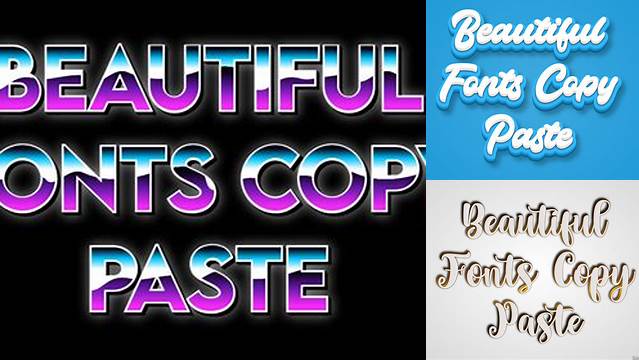
Cool Fonts: Copy And Paste For Beautiful Text!
Hey guys! Ever wanted to make your social media posts, messages, or designs pop with some unique and beautiful fonts? Well, you’ve come to the right place! We're diving deep into the world of copy and paste fonts that can add that extra flair to your content. Forget about being stuck with the same old boring fonts – we’re here to explore a whole universe of text styles that are just a copy and paste away! So, let’s get started and transform your text from blah to brilliant!
Fancy Text Generators: Your Gateway to Beautiful Fonts
So, you're wondering, how do I even get these beautiful fonts to copy and paste? The answer lies in the magic of fancy text generators! These nifty online tools are like font factories, churning out a variety of styles that you can easily copy and paste into your desired platform. We're talking about everything from cursive and calligraphy to bubble letters and bold, futuristic fonts. It’s like having a digital calligraphy set at your fingertips! These generators work by using special Unicode characters that mimic different font styles. The beauty is that you don’t need to download anything – just type your text, choose your font, and boom! You’ve got beautiful fonts ready to go. These tools are super user-friendly, even if you're not a tech whiz. Plus, they’re a fantastic way to experiment with different styles and see what best suits your vibe. Think of it as your personal font playground, where you can unleash your creativity and make your text truly stand out. It’s all about adding that personal touch, and fancy text generators make it incredibly easy to do so. So, next time you’re looking to spice up your text, remember these little gems – they're your secret weapon to beautiful fonts!
Cursive Fonts: Adding Elegance to Your Text
If you're aiming for a touch of elegance and sophistication, then cursive fonts are your best friend. These beautiful fonts mimic the flow and loops of handwriting, adding a personal and refined feel to your text. Imagine using a delicate cursive font for invitations, heartfelt messages, or even your Instagram bio – it instantly elevates the overall look! The great thing is, you can easily find a variety of cursive fonts through copy and paste methods. Fancy text generators often have a dedicated section for cursive styles, offering options that range from traditional calligraphy to modern and whimsical scripts. When choosing a cursive font, think about the context. A flowing, ornate script might be perfect for a formal occasion, while a simpler, more legible cursive could work well for everyday use. Experiment with different styles to see what resonates with you and the message you want to convey. Remember, cursive fonts are all about making a statement with style and grace. They're a fantastic way to add a touch of class to your digital presence, and the ease of copy and paste makes them incredibly accessible. So, go ahead and embrace the beauty of cursive – it's a font choice that never goes out of style!
Bold Fonts: Making a Statement with Strength
Sometimes, you need your text to pack a punch, and that's where bold fonts come into play. These beautiful fonts are designed to grab attention and make a statement with their strong, thick lines. Think of them as the shout-out of the font world – perfect for headlines, announcements, or any time you want to emphasize a particular message. The beauty of bold fonts is their versatility. They can be used across a wide range of platforms and contexts, from social media posts to website headers. When you copy and paste bold fonts, you're instantly adding visual weight to your text, making it stand out from the crowd. Fancy text generators offer various bold styles, from classic and sturdy to modern and edgy. Experiment with different weights and widths to find the perfect balance for your needs. A super-bold font might be ideal for a short, impactful headline, while a slightly lighter bold could work well for body text. Remember, bold fonts are all about making an impact, so use them strategically to highlight the most important aspects of your message. They’re a simple yet effective way to add emphasis and ensure your text gets noticed.
Italic Fonts: Adding Emphasis and Style
When you want to add a touch of flair or emphasize certain words or phrases, italic fonts are your go-to choice. These beautiful fonts lean slightly to the right, creating a sense of movement and drawing the reader's eye. They're perfect for adding emphasis to quotes, titles, or any text you want to stand out from the rest. Italic fonts also bring a stylish touch to your writing, making it feel more elegant and sophisticated. Finding and using italic fonts is a breeze thanks to copy and paste methods. Many fancy text generators offer italic versions of their fonts, allowing you to easily transform your text with a simple click. You can even combine italics with other styles, like bold or cursive, for a truly unique look. Think about using italics in your social media captions, blog posts, or even your email signatures to add a subtle yet impactful touch. They're a fantastic way to highlight key information and make your text more visually appealing. Remember, italics are like the whisper of the font world – they add a touch of intrigue and draw the reader in. So, embrace the power of italics and watch your text come alive!
Bubble Fonts: Fun and Playful Text Styles
If you're looking to inject some fun and playfulness into your text, then bubble fonts are the way to go! These beautiful fonts feature rounded, bubbly shapes that instantly add a lighthearted and cheerful vibe. They're perfect for birthday messages, party invitations, or any time you want to create a fun and friendly atmosphere. Bubble fonts are a fantastic way to express your creativity and make your text more engaging. Thanks to the ease of copy and paste, you can easily incorporate these fonts into your social media posts, designs, or even your personal journal. Fancy text generators offer a variety of bubble font styles, from simple and clean to more elaborate and whimsical. Experiment with different colors and sizes to create a truly unique look. Think about using bubble fonts for your children's party invitations or to add a touch of whimsy to your blog posts. They're a surefire way to bring a smile to people's faces and make your text more memorable. Remember, bubble fonts are all about embracing your playful side, so don't be afraid to get creative and have fun with it!
Gothic Fonts: Dark and Dramatic Text
For a touch of drama and intrigue, gothic fonts are an excellent choice. These beautiful fonts, also known as blackletter fonts, evoke a sense of history and mystery with their ornate and angular letterforms. They're perfect for adding a vintage or edgy feel to your projects. Think about using them for posters, album covers, or even tattoos. Gothic fonts make a bold statement and can instantly transform your text into something captivating. While they might seem intimidating at first, using gothic fonts is easy with the copy and paste method. Many fancy text generators offer a selection of gothic styles, allowing you to experiment and find the perfect fit for your project. When using gothic fonts, it's important to consider legibility. Due to their intricate designs, they might not be ideal for long passages of text. However, for headlines, titles, or short phrases, they can be incredibly effective. Remember, gothic fonts are all about creating a mood and making a statement, so use them strategically to achieve your desired effect. They're a fantastic way to add a touch of darkness and drama to your creative endeavors.
Calligraphy Fonts: Elegant and Artistic Styles
If you're aiming for elegance and artistry, calligraphy fonts are the perfect choice. These beautiful fonts mimic the fluid strokes of traditional calligraphy, adding a touch of sophistication and grace to your text. They're ideal for invitations, thank-you notes, or any project where you want to convey a sense of refinement. Calligraphy fonts are a timeless classic and can elevate your text to a whole new level. The best part is, you don't need to be a skilled calligrapher to use them. With the copy and paste method, you can easily incorporate these stunning fonts into your designs. Fancy text generators offer a wide variety of calligraphy styles, from classic Copperplate to modern brush scripts. Experiment with different weights and flourishes to find the perfect font for your needs. Think about using calligraphy fonts for wedding invitations, certificates, or even your personal stationery. They're a fantastic way to add a touch of luxury and make your text truly special. Remember, calligraphy fonts are all about celebrating the beauty of handwriting, so embrace their elegance and let your text shine!
Retro Fonts: Vintage and Nostalgic Text Styles
Want to take a trip down memory lane? Retro fonts are the perfect way to evoke a sense of nostalgia and add a vintage touch to your text. These beautiful fonts capture the essence of different eras, from the groovy 70s to the bold 80s and beyond. They're perfect for posters, logos, or any project where you want to create a retro vibe. Retro fonts are a fun and stylish way to stand out from the crowd and add a unique twist to your designs. Thanks to the convenience of copy and paste, you can easily incorporate these fonts into your projects. Fancy text generators offer a diverse range of retro styles, from funky bubble letters to classic serifs. Experiment with different colors and textures to enhance the retro feel. Think about using retro fonts for your next party invitation, website header, or social media graphic. They're a fantastic way to pay homage to the past and add a touch of personality to your text. Remember, retro fonts are all about celebrating the styles of yesteryear, so embrace the nostalgia and let your creativity flow!
Futuristic Fonts: Modern and Sci-Fi Text Styles
So, there you have it, guys! A whole world of beautiful fonts that are just a copy and paste away. Whether you’re looking for something elegant, bold, playful, or futuristic, there’s a font out there for every style and occasion. So, go ahead, experiment, and let your text shine! You got this!